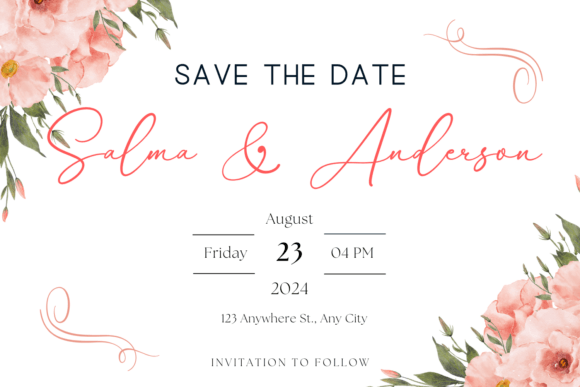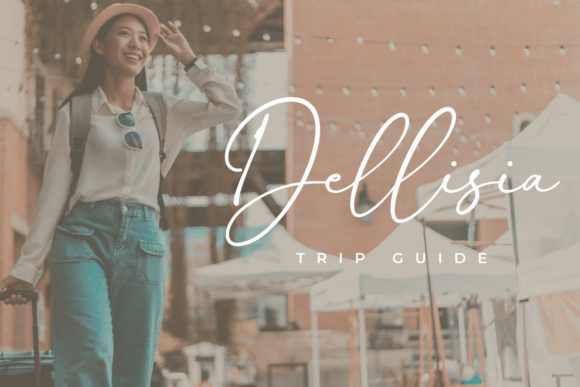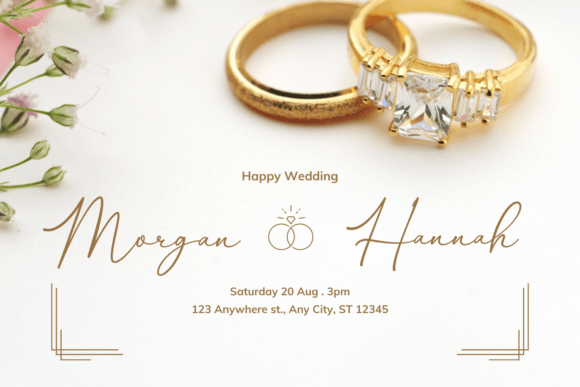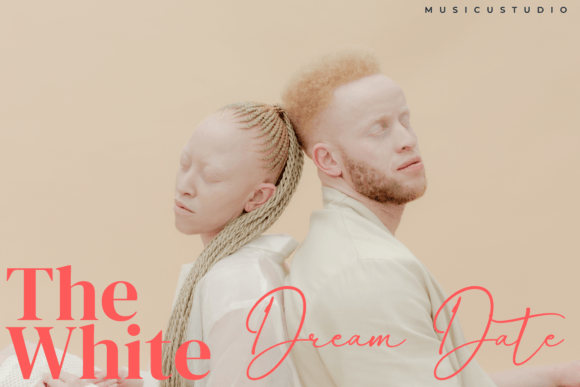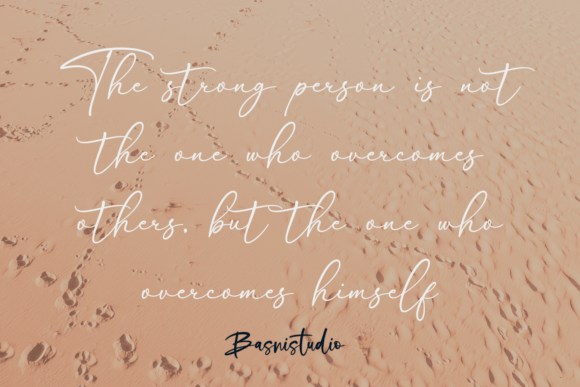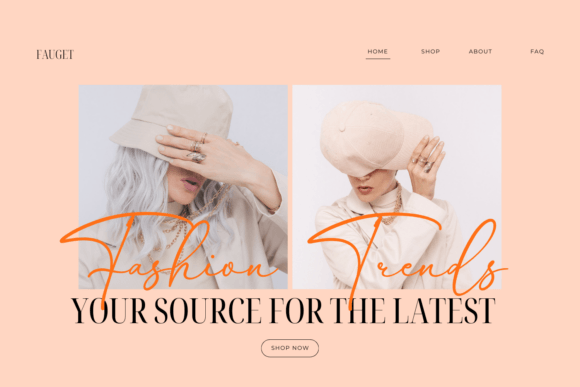
The Celistino Font: Elevate Your Designs with a Touch of Elegance
In the world of typography, a font can make or break a design. The right font can elevate your brand, add sophistication to your website, or bring a touch of personality to your editorial designs. This is where the Celistino Font comes in – a beautifully crafted handwritten font that is perfect for designers and crafters looking to add a natural touch to their work.
What is the Celistino Font?
The Celistino Font is a stunning handwritten font that is designed to bring a sense of elegance and sophistication to your designs. With its natural touch and precision, this font is perfect for a wide range of applications, from branding and websites to editorial designs and more. The font is crafted with care, ensuring that every letter, punctuation, and ligature is perfect for use in a variety of contexts.
Key Features of the Celistino Font
So, what makes the Celistino Font so special? Here are just a few of its key features:
- All Character Letters: The Celistino Font includes all character letters, ensuring that you have everything you need to create beautiful, professional-looking designs.
- Multilingual Support: With multilingual support, you can use the Celistino Font to create designs that cater to a global audience.
- Punctuation: The font includes a range of punctuation marks, making it easy to add the finishing touches to your designs.
- Ligatures: The Celistino Font also includes ligatures, which allow you to create beautiful, flowing text that is a joy to read.
Why Choose the Celistino Font?
So, why should you choose the Celistino Font for your next design project? Here are just a few reasons:
- Unique and Elegant: The Celistino Font is a truly unique and elegant font that will set your designs apart from the crowd.
- Versatile: With its natural touch and precision, the Celistino Font is perfect for a wide range of applications, from branding and websites to editorial designs and more.
- High-Quality: The Celistino Font is a high-quality font that is crafted with care, ensuring that every letter, punctuation, and ligature is perfect for use in a variety of contexts.
In conclusion, the Celistino Font is a beautifully crafted handwritten font that is perfect for designers and crafters looking to add a natural touch to their work. With its unique and elegant design, versatile features, and high-quality craftsmanship, this font is sure to elevate your designs and set them apart from the crowd. Whether you’re working on a branding project, website, or editorial design, the Celistino Font is a great choice. So why not give it a try and see the difference it can make?